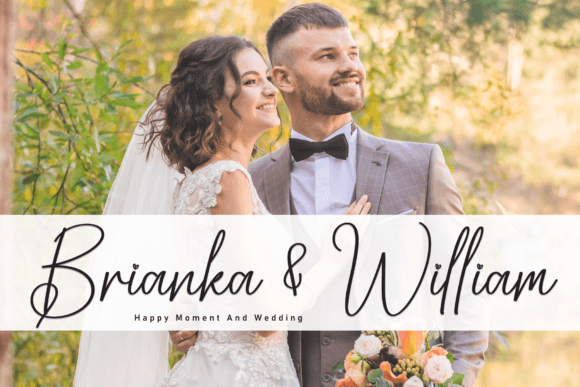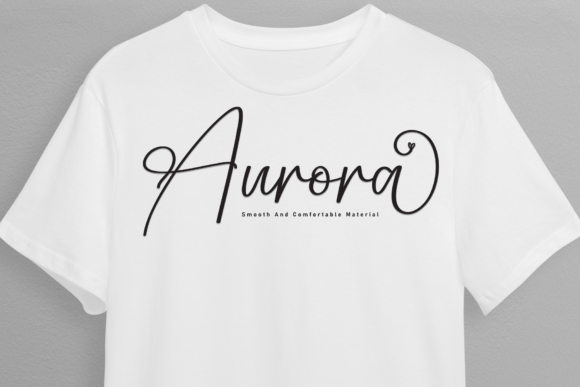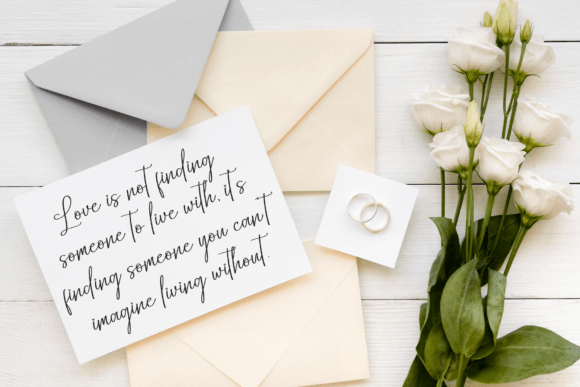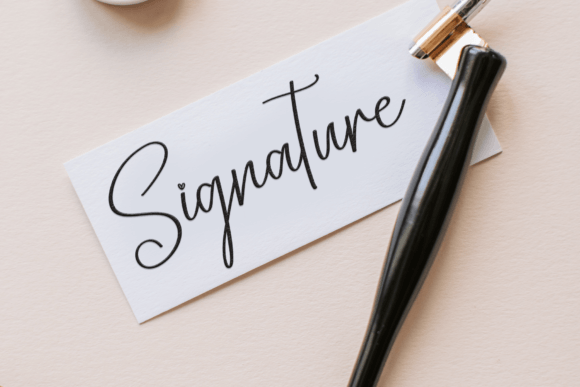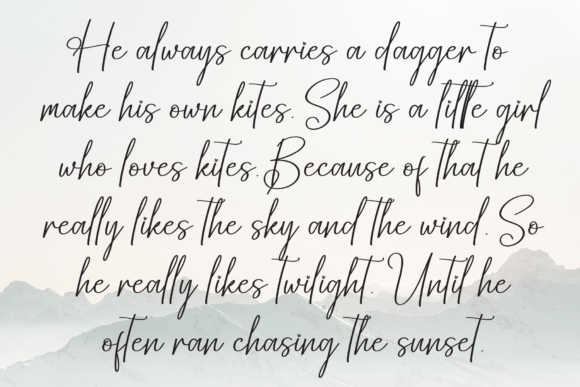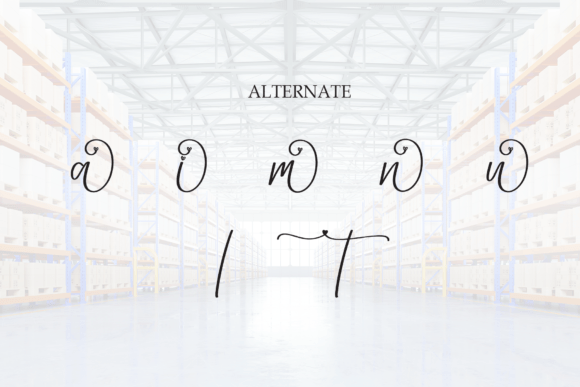
Introduction to Retention Font
Do you remember that moment when you stumbled upon the perfect font, and everything just clicked? For designers, finding the right font can be a game-changer. It’s the difference between a project that looks generic and one that truly stands out. That’s where Retention Font comes in – a stunning handwritten font that’s sure to elevate your creative projects to new heights.
Retention Font is more than just a design resource – it’s a tool that can help you convey your message with precision and style. With its classy calligraphic influences and fresh, contemporary feel, this font is perfect for designers looking to add a touch of sophistication to their work. Whether you’re working on a branding project or creating a digital asset, Retention Font is sure to bring your vision to life.
Key Features of Retention Font
- High-quality, professional design perfect for any creative project, including graphic design, digital art, and more.
- Unique, modern design aesthetic that sets your creative project apart from the competition.
Honest Review: Retention Font
- ✨ The font has a clean and modern design that works well for a variety of creative projects.
- ✨ The font is highly customizable, making it easy to adapt to different design needs.
- ⚠️ The font may not be suitable for complex or large-scale projects due to potential compatibility issues.
- ⚠️ The font’s design, while modern, may not be to everyone’s taste.
Overall, I’m impressed with the Retention Font’s potential. While it may have some limitations, it’s a great addition to any designer’s toolkit. With its high-quality design and transparent background option, it’s definitely worth considering for your next creative project.
The Retention Font is a high-quality design resource that can enhance your creative project. With a transparent background, it’s perfect for use in various design applications.
The Retention Font is commonly used in brochures, flyers, posters, and social media graphics. You can also use it for branding and logo design.
To get the most out of the Retention Font, use it in conjunction with other design elements, such as images and shapes. Experiment with different font sizes and styles to create a visually appealing design.